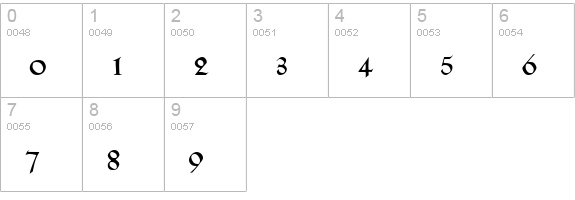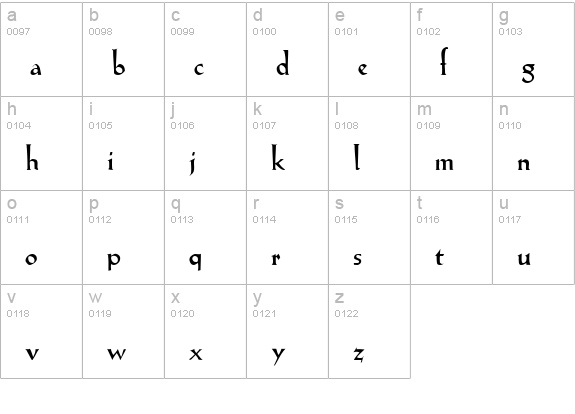
LilithHeavy Font Details
LilithHeavy font is a bold and impactful typeface that demands attention with its strong presence and unique character. Its thick lines and sharp edges give it a modern and edgy feel, making it perfect for headlines, titles, and other eye-catching design elements. The prominent weight of the letters adds a sense of power and authority to any text it is applied to. What sets LilithHeavy font apart is not just its striking design, but also the fact that it is available for free download at FontsMarket.com. This means that you can easily access and use this versatile font in your projects without any cost, making it a valuable resource for designers and creatives looking to make a bold statement with their typography. Don't miss out on the opportunity to enhance your designs with the impactful aesthetics of LilithHeavy font, now conveniently and freely available for you to unleash your creativity.